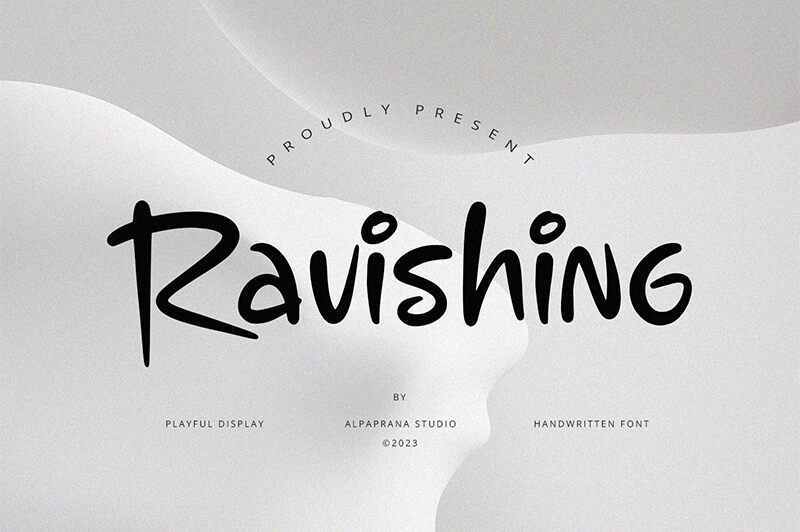
Ravishing
Ravishing font by Alpaprana Studio is a free handwritten font that looks particularly elegant and stylish. Created with a thin pen, its letters have a condensed appearance which might contribute to the modern vibe you’ll sense for the very first moment. Clear, casual, and not going overboard are further characteristics bound to Ravishing.
This font can easily find use in company slogans, web page titles, movie covers, magazine layouts, and even printed clothing items like T-shirts. A few further documenting uses include photo watermarks or signatures as well as logos and official invitation card designing.